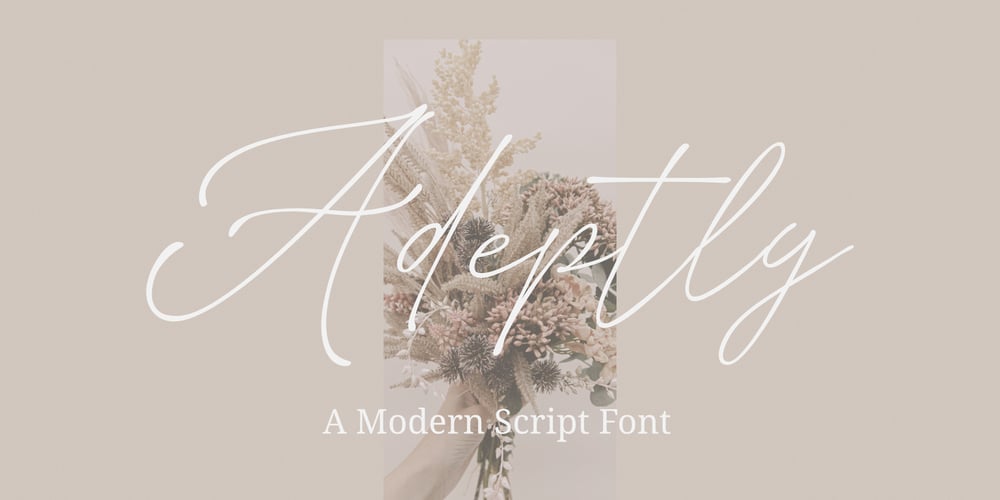
Adeptly Font Family was designed by Ali Hamidi and published by Ali Hamidi. Adeptly contains 1 styles and family package options. Adeptly is modern and classy calligraphy font, that comes with beautiful and lovely vibes. Adeptly has a very beautiful stroke and it will suit various wedding invitations, fashion cards, and more.